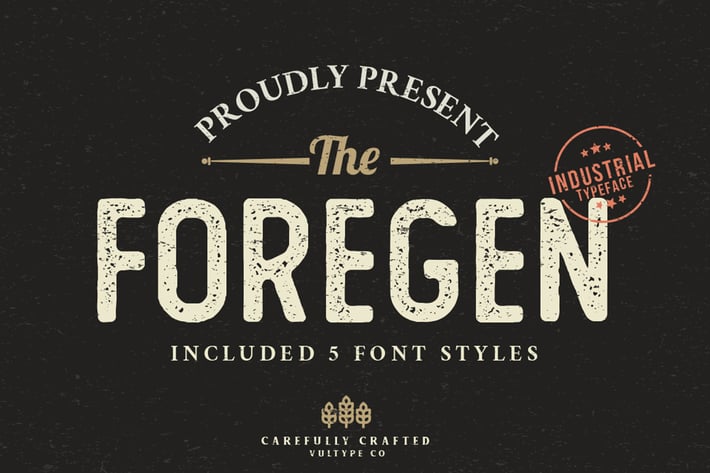
The Foregen Vintage Font
The Foregen is vintage sans serif font with 6 font styles including Regular, Outline, Vintage, Stamp one, And Stamp two
Made carefully to create the perfect texture and suitable for each of your projects also great for Logotype, Branding Design, Logo Design, Digital Lettering Arts, T-Shirt/Apparel, Poster, Magazine, Signs, Advertising Design, and any vintage design needs.